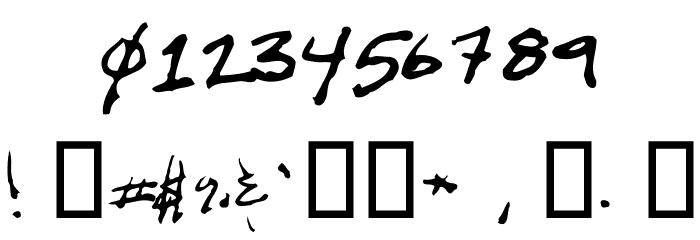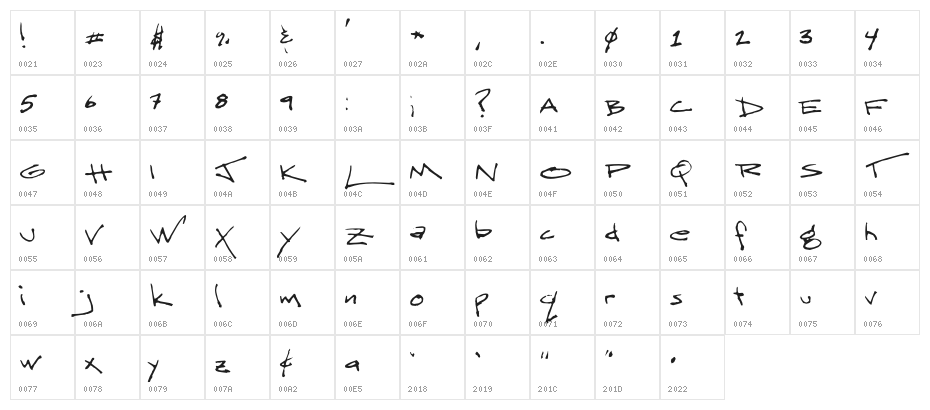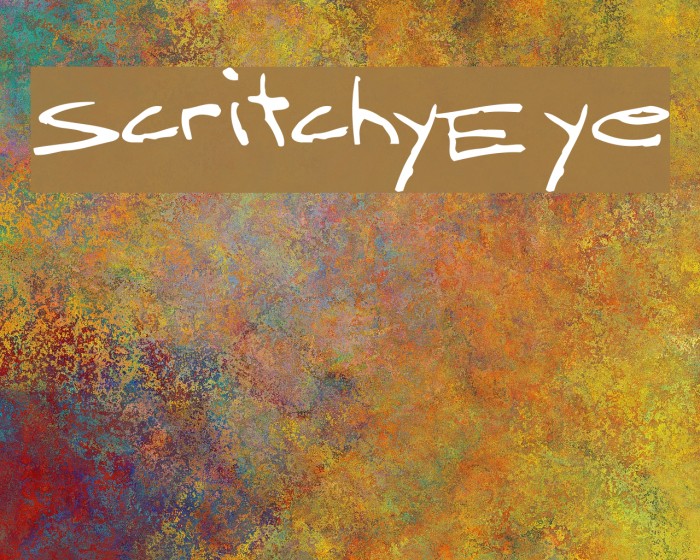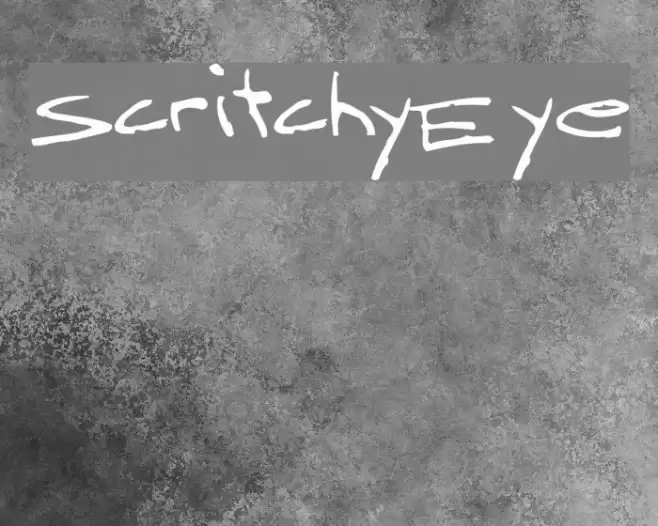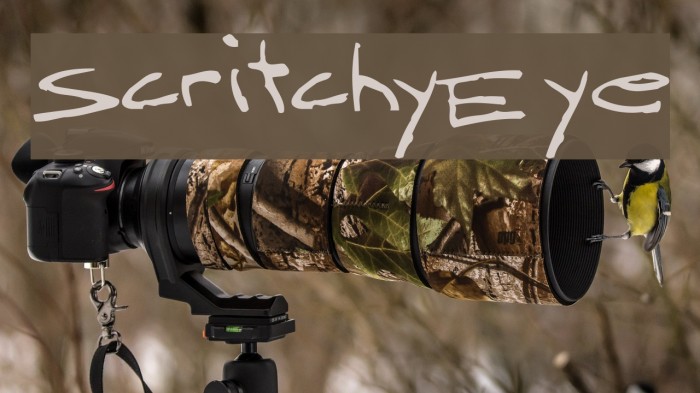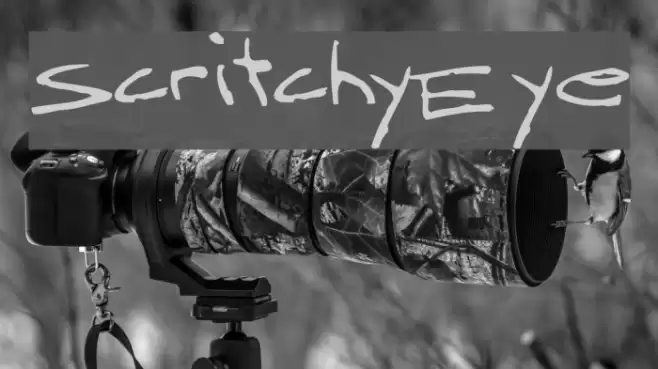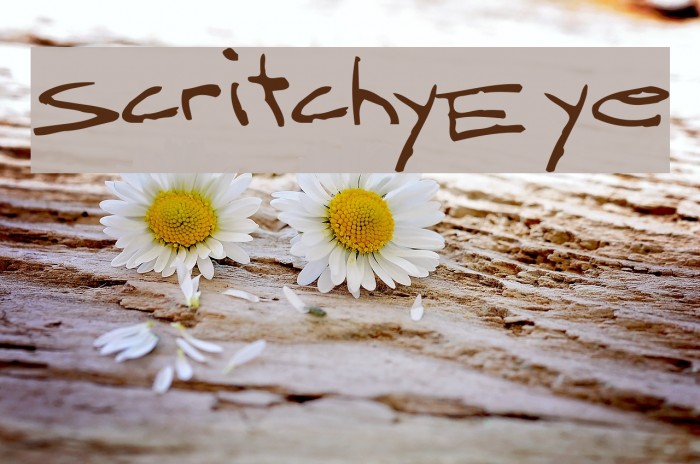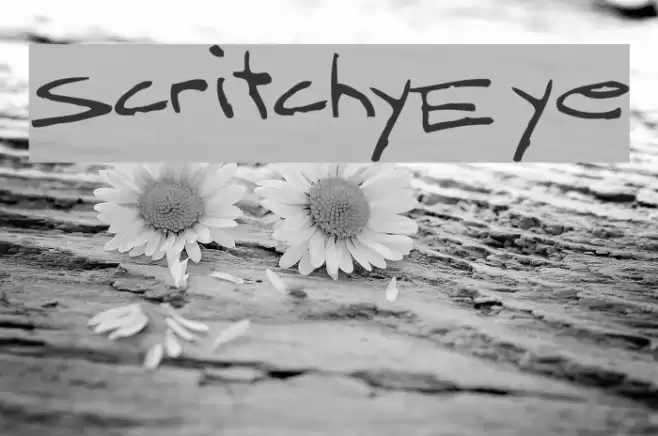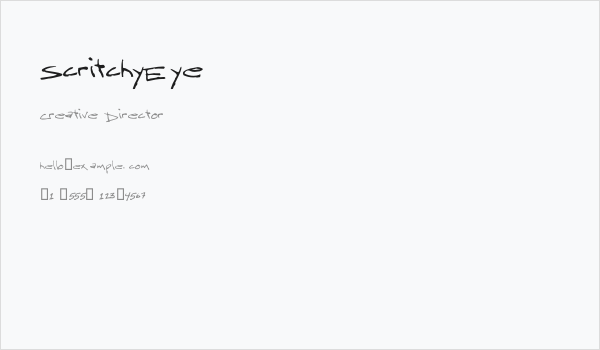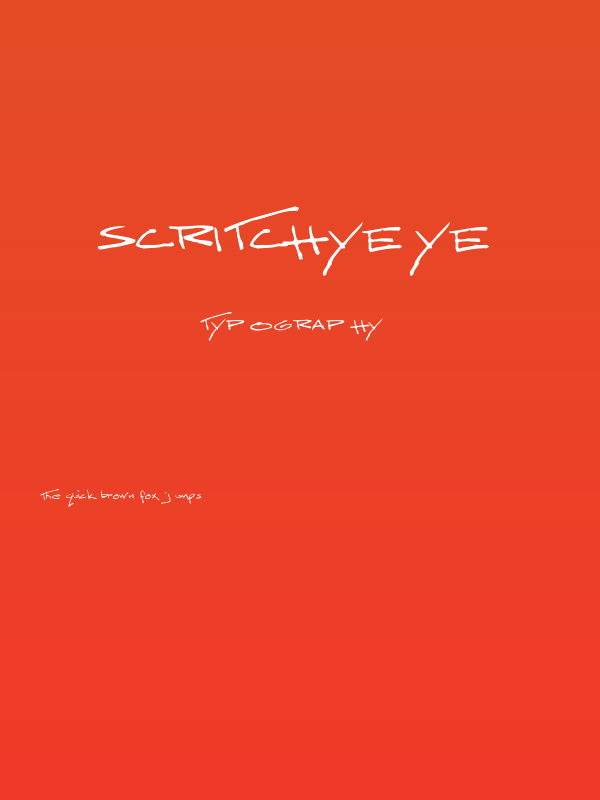
ScritchyEye Font
ScritchyEye Description
This font exudes a raw, hand-drawn aesthetic with its irregular, jagged strokes and dynamic, energetic lines. Each character appears as if it were sketched with a quick, expressive motion, giving the typeface a sense of urgency and spontaneity. The uppercase letters are bold and assertive, while the lowercase maintains a consistent flow, enhancing the overall chaotic yet controlled appearance. Numbers and special characters follow the same style, ensuring a cohesive look. The font's unique style makes it ideal for projects that require a personal, artistic touch.
| Proposed Projects | Ideal for graffiti art, album covers, edgy branding, and creative posters. |